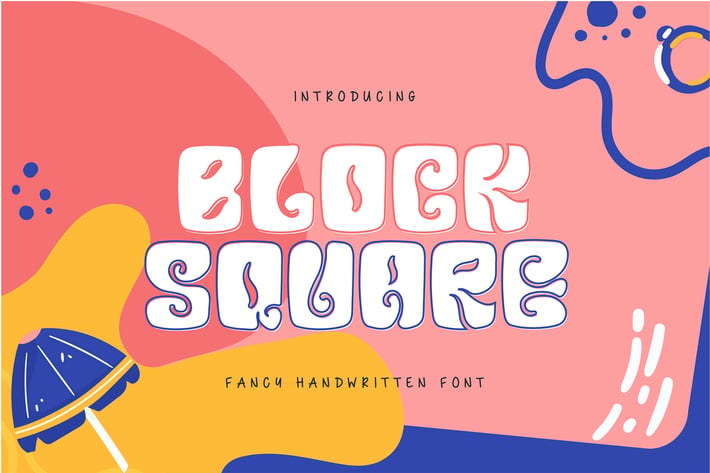
Block Square | Fancy Handwritten Font
Block Square | Fancy Handwritten Font with a calligraphy style, So beautiful on invitation like greeting cards, branding materials, business cards, quotes, posters, and more!